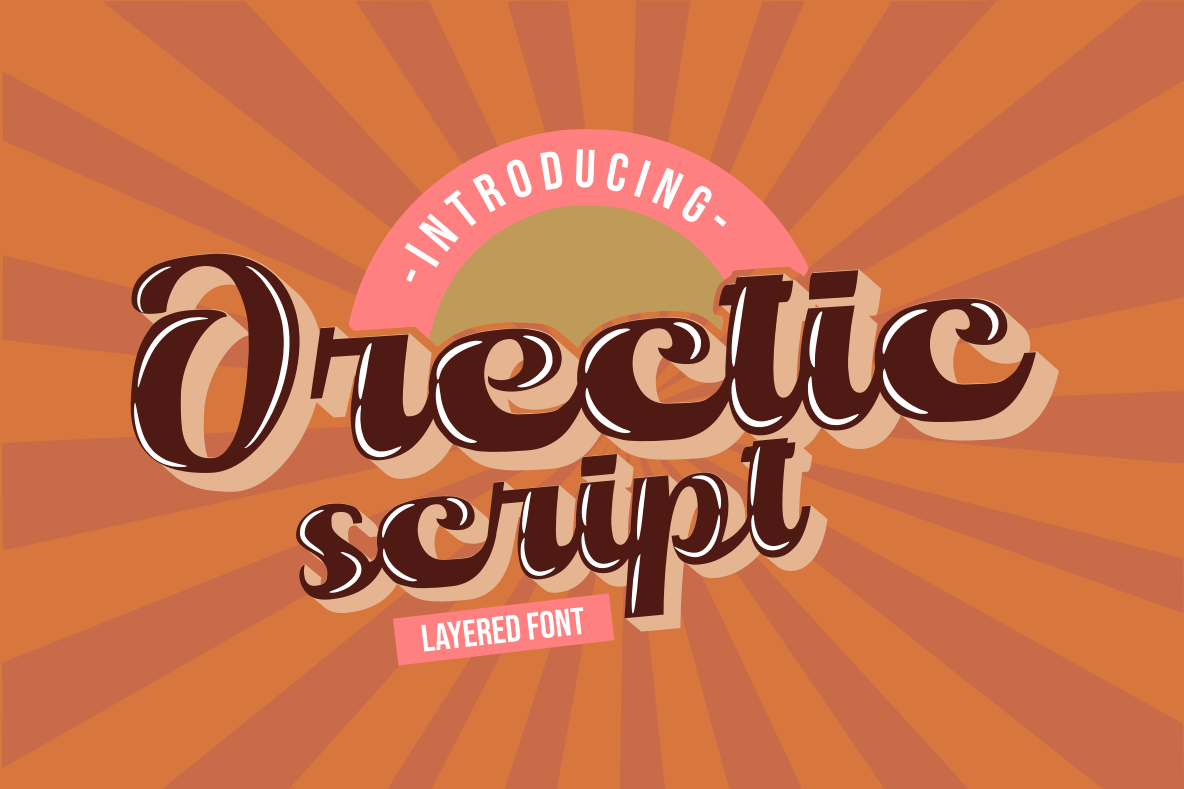
Orectic Script - Layered
introduce our last font,
we name it Orectic Script
Orectic script is handlettering script font, it's bold font with 4 different style and layered system,
So you won't need extra effort for create an shadows effect and highlight efferct for this font. This mean it will saves your time.
this font suiatble for logo, title, poster, label, t-shirt, branding, flayer etc.